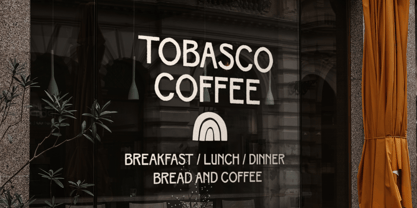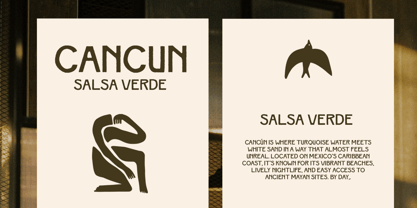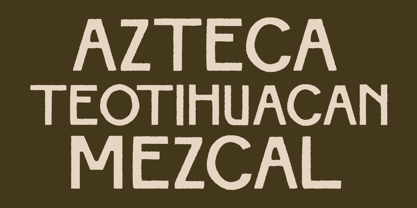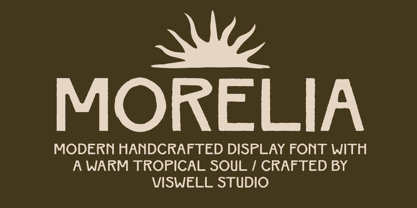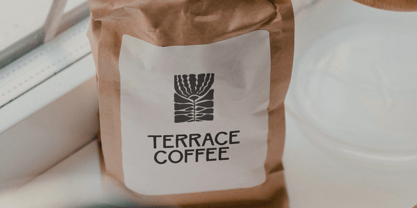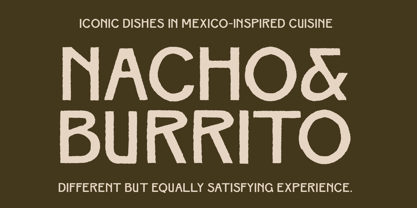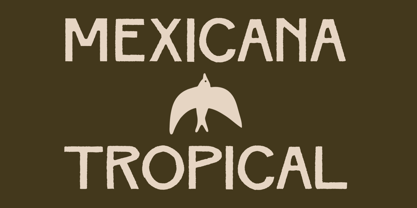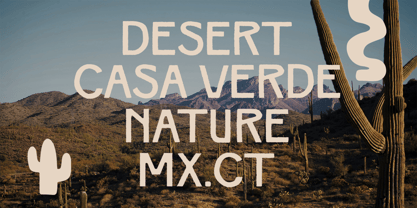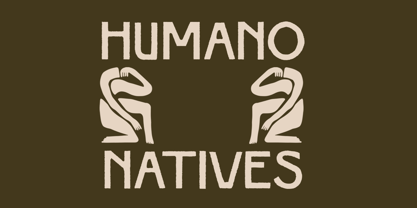
Morelia
The Morelia Font Family was designed by Najril Ilham Amrullah and published by Viswell. Morelia contains 1 styles. More about this family
Morelia is a modern handcrafted display font inspired by tropical warmth, artisan culture, and organic imperfections. It has a bold, clean look with just enough handmade texture to make your designs feel more personal and alive. The font includes uppercase letters, numerals, and punctuation — perfect for branding, café menus, packaging, posters, logos, and social media content that needs a warm, creative personality.